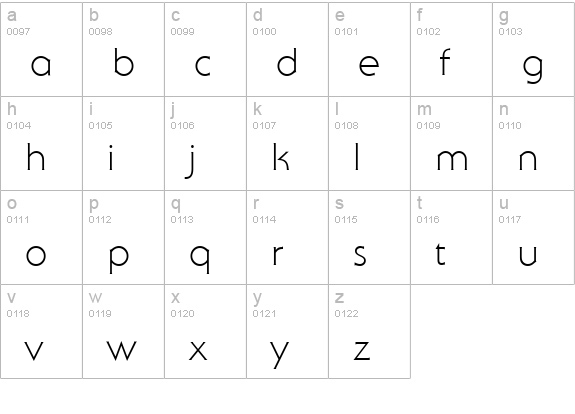
Sebastian-Light-Regular is a refined, elegant variant in the Sebastian typeface family \xE2\x80\x94 well suited to elegant body text, refined sub-headings, and luxury branding.
Sebastian-Light-Regular is a modern and elegant font that exudes sophistication and style. With its clean lines and delicate curves, this typeface is perfect for adding a touch of class to your designs. Whether you are working on a branding project, a website design, or any other creative endeavor, Sebastian-Light-Regular is sure to make a statement. The best part? Sebastian-Light-Regular is completely free to use! You can download this stunning font at FontsMarket.com and start incorporating it into your projects right away. Don't miss out on the opportunity to elevate your designs with this beautiful and versatile typeface.